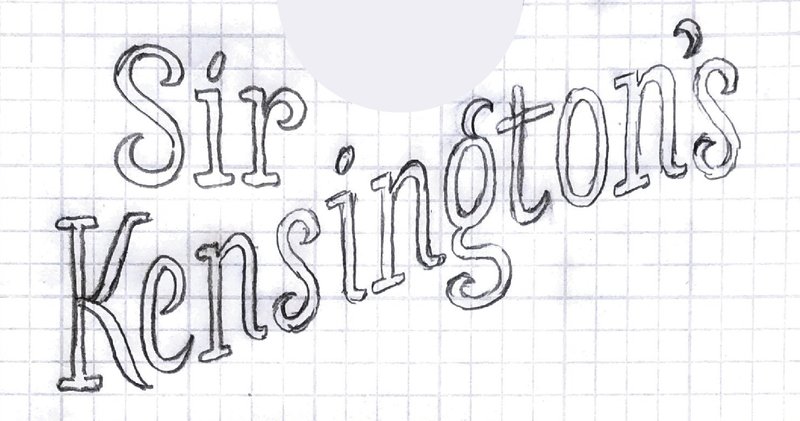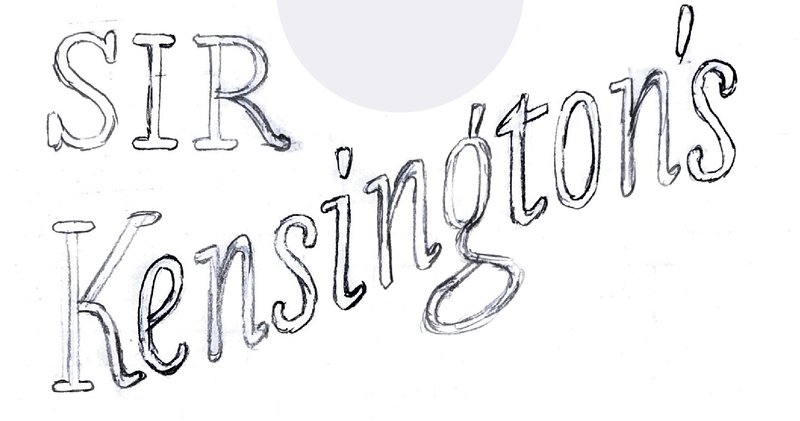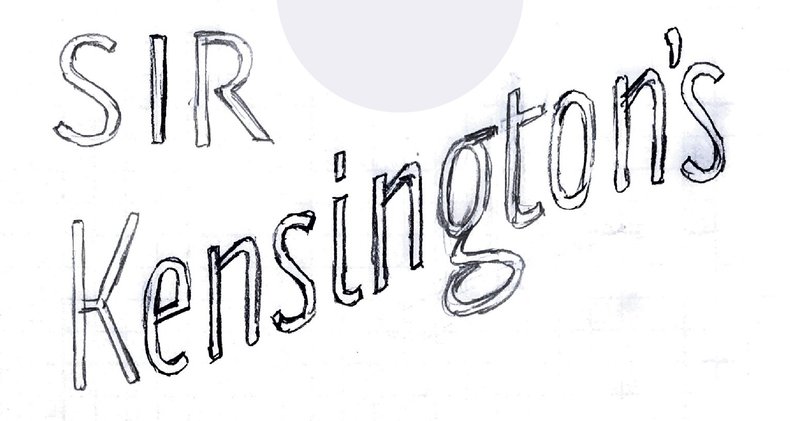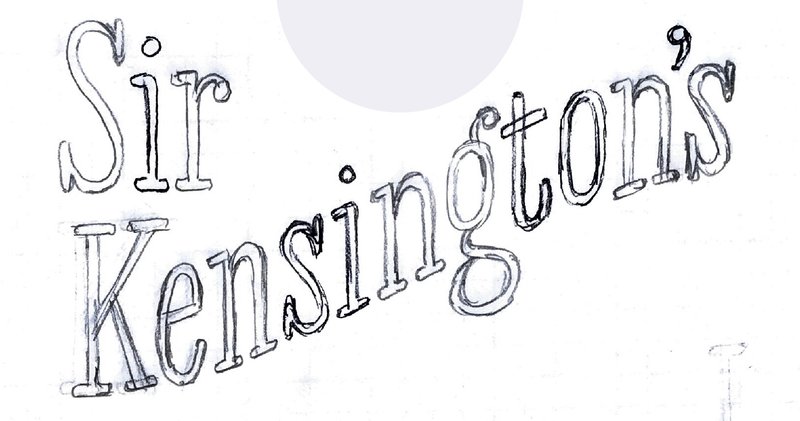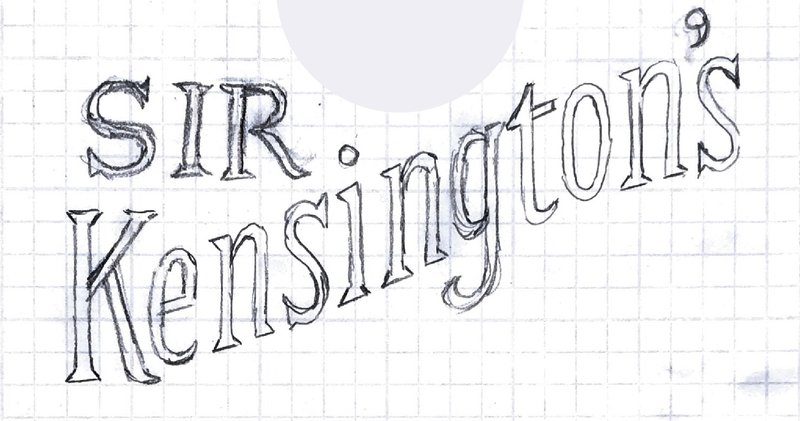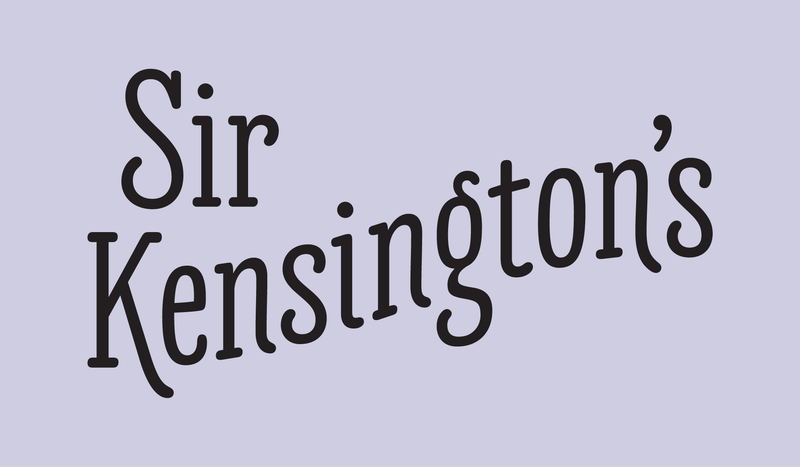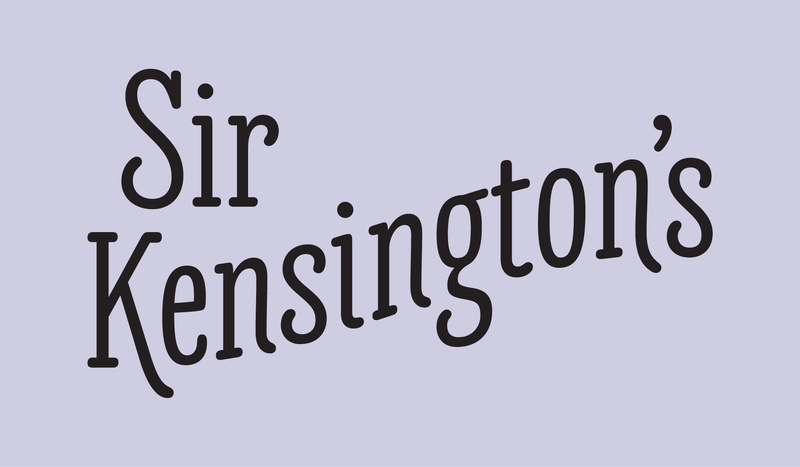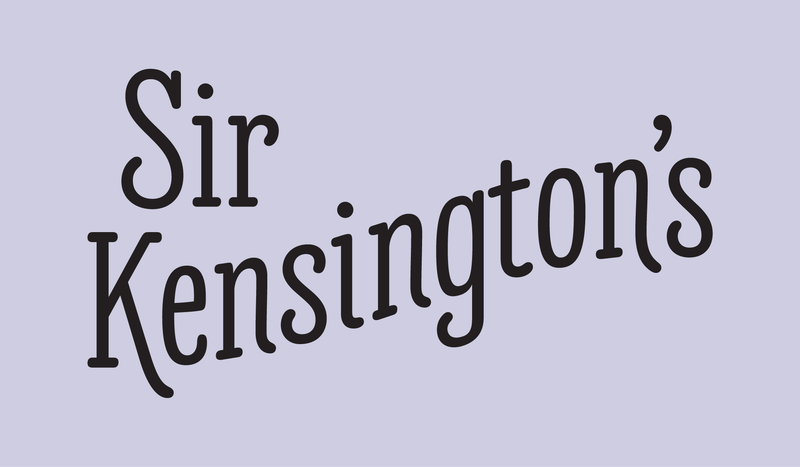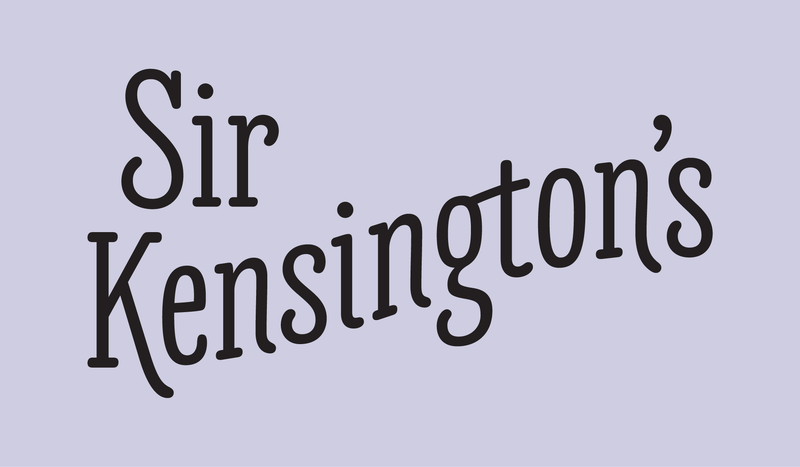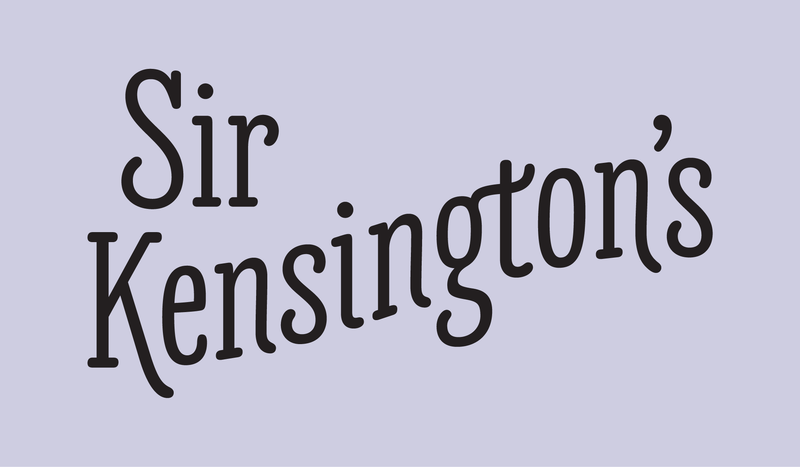
The Sir Kensington’s logotype started with a client who knew exactly what they wanted—just not how to execute it perfectly. We collaborated to make the final logotype like their Dijon mustard: delectable with a touch of spice.
Custom lettering for Sir Kensington’s
A deliciously novel wordmark
Establishing historical context
Creative director Kimiyo Nakatsui and Sir Kensington’s in-house agency had done extensive exploration and arrived at a tight concept for a new logotype that established the company’s intended hierarchy, composition, and aesthetic. They recognized when it was time to ask for help polishing their rough idea, and they were excited to go on a journey with us.
As a first step, we posed the question to their internal design team: What specifically is this lettering trying to evoke?
We cracked the books to find the answer. By referencing archival drafting manuals, Speedball lettering guides, and historical bookseller labels, we collectively built a stronger foundation under what otherwise might be vague Victorian pastiche.
Jesse did a wonderful job bringing the Sir Kensington’s logo to life. He pushed our initial ideas into a better territory with his extensive typographic knowledge, producing a highly legible wordmark which was quite a feat for a long and complex name.
Sketching by hand
Our final deliverables were of course digital, but initially Jesse stepped away from the computer and brought a human touch to the design process with old-fashioned pencil and paper. These loose sketches, which “tried on” various typographic styles and structural details, sparked an insightful discussion with the design team.
With newfound focus, Jesse brought these more organic drawings back to the computer to explore weight, structure, proportions, and curves, before fine-tuning the vector drafting.
The result is a wordmark like no other—a deliciously novel footprint and letterforms that keep up with the character and charm that come with Sir Kensington himself.
Finding the right character and balance
Relying on our instincts and extensive exploration, we found the right visual balance in a unique lockup of elements: an illustration, a very short word, and a very long word. After much trial and error, we arrived at the perfect curve and upright italic structure for the word “Kensington’s,” paired with a strong baseline and roman serif structure for “Sir.”
In the word “Kensington’s,” a playfully extended leg of the K sets off a series of kicks at the exits of the n, i, and second n, slowing to a swash on the final n, which nestles against the last s under the apostrophe. Since the lowercase g provides an opportunity for expressive personality, Jesse indulged in creating a number of options for it. Rather than resorting to an exaggerated ear on top—which would compete with the illustration—he ultimately chose a subtle curl for it, shifting the visual excitement toward a loose, expressive lower loop in the negative space under the arch.
These whimsical details soften the simple, legible letterforms into a memorable wordmark that underscores the brand’s overall strategy: to evoke curiosity, wonder, and delight.
These days, when we walk down the condiments aisle of our local grocery store, we can’t help but smile at the cheerful bottles of mayonnaise and mustard that we had a part in making just a tiny bit tastier.